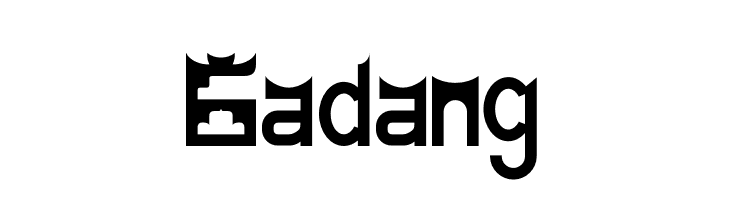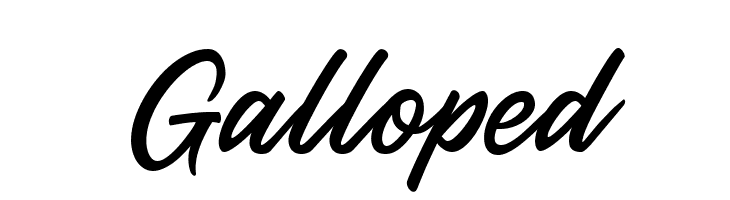
A bold, geometric font with sharp angles and unique cutouts, perfect for modern designs.
A graceful, handwritten script font with flowing, interconnected letters.
A bold, retro-inspired script font with dynamic, flowing letters.
A casual, handwritten font with a playful and approachable style.
A graceful, cursive script font with elegant, flowing strokes.
A futuristic, geometric font with a dot-matrix style, ideal for modern and experimental designs.
A classic serif font with high contrast and elegant strokes, perfect for formal use.
A playful handwritten font with thin, flowing lines and whimsical letterforms.
A modern, geometric sans-serif font with clean lines and uniform stroke width.
A modern, geometric sans-serif font with a condensed and uniform design.